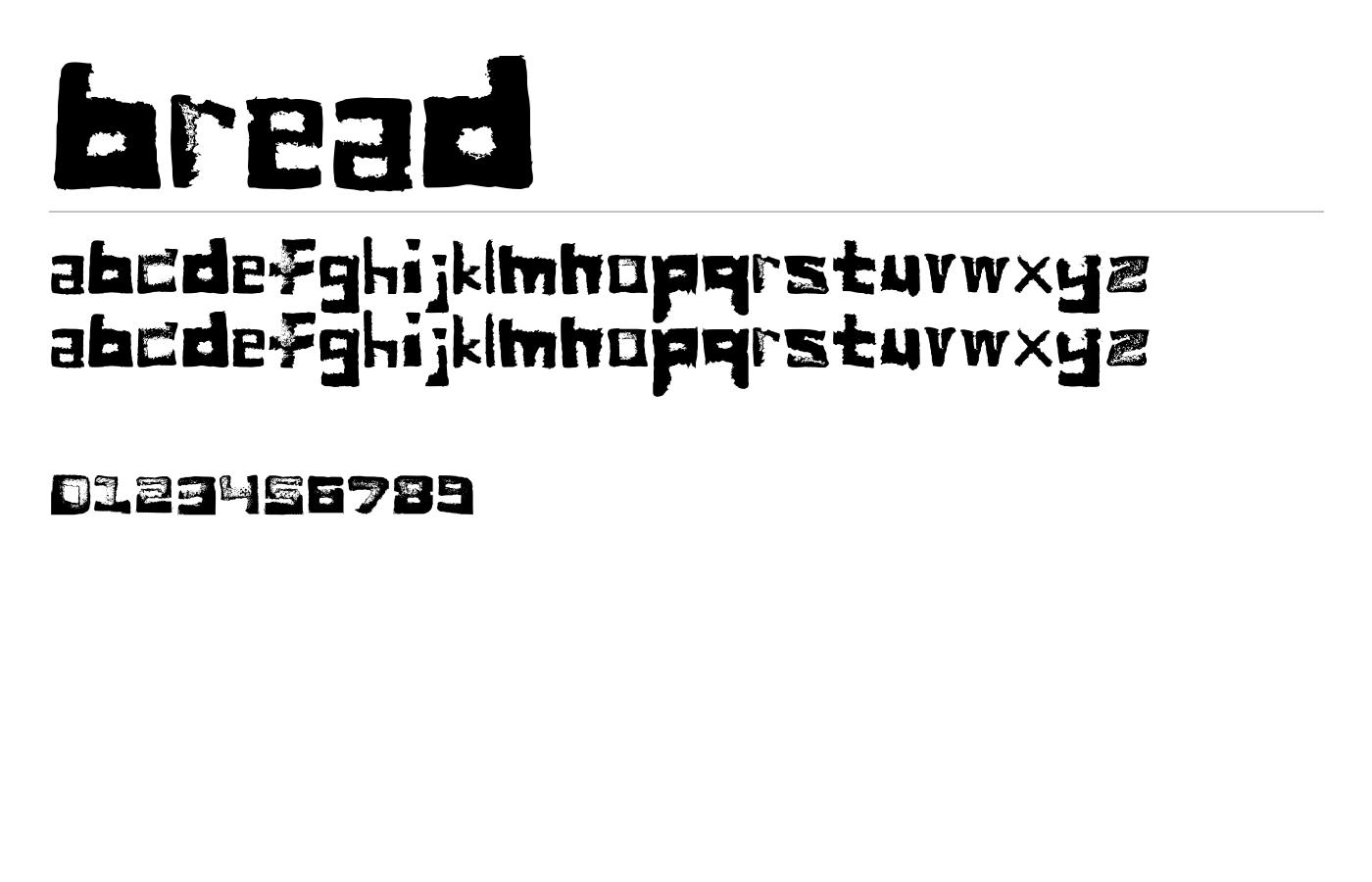
Bread Font is a bold, blocky sans serif with a rough, textured look that feels hand-stamped or distressed. Its irregular edges and sturdy, compact letterforms give it a rugged, informal personality, perfect for adding a tactile, creative vibe to designs. This font works well in posters, packaging, and branding projects where a strong, gritty, and handmade impression is desired.